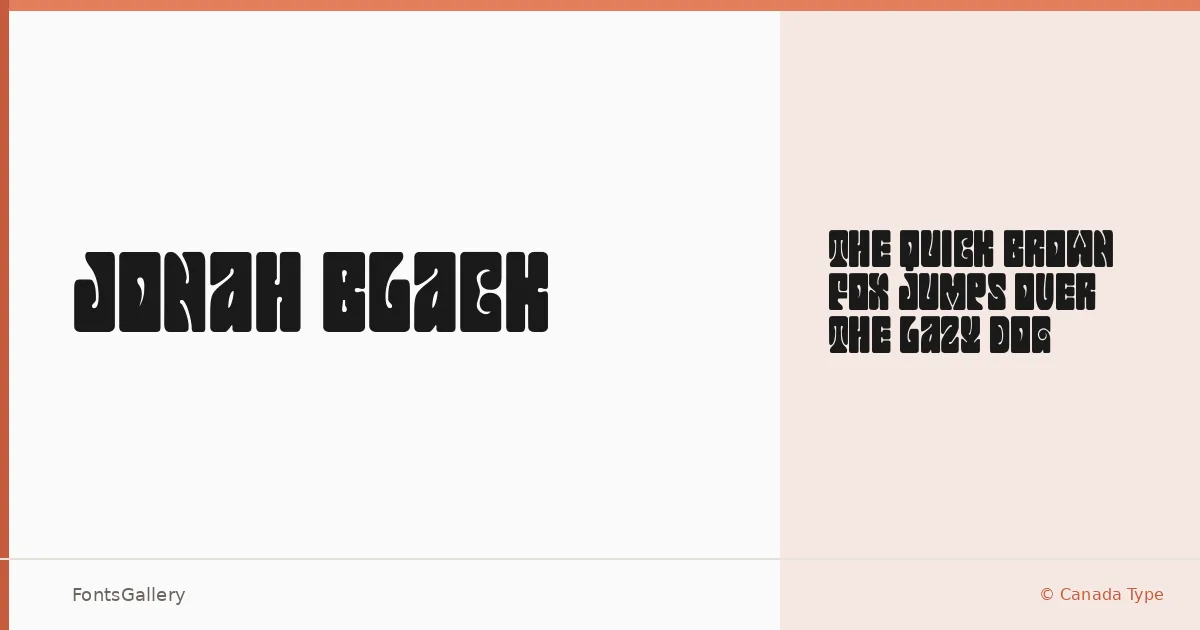
About Jonah Black Font
There is a weight to this face that goes beyond its name — something worn-in and deliberate, like ink pressed hard into rough stock. Released by Canada Type, it arrives as a single cut: Regular. That one weight carries everything it needs to.
This is a display face sitting squarely in grunge and vintage territory, with a boldness that feels earned rather than engineered. The forms lean playful even at their heaviest, which keeps headlines from turning oppressive. Available as a TTF, the single Regular style is dense and characterful — the kind of weight that dominates a layout without apology.
It earns its keep on posters, band tees, and logo lockups where attitude matters as much as legibility. Branding and headline work within Latin-language contexts is its natural habitat. For contrast, it pairs well against the clean geometry of Helvetica or Aileron, and holds its own alongside the more structured personalities of Anglecia Pro, Abrade, and AQUA.